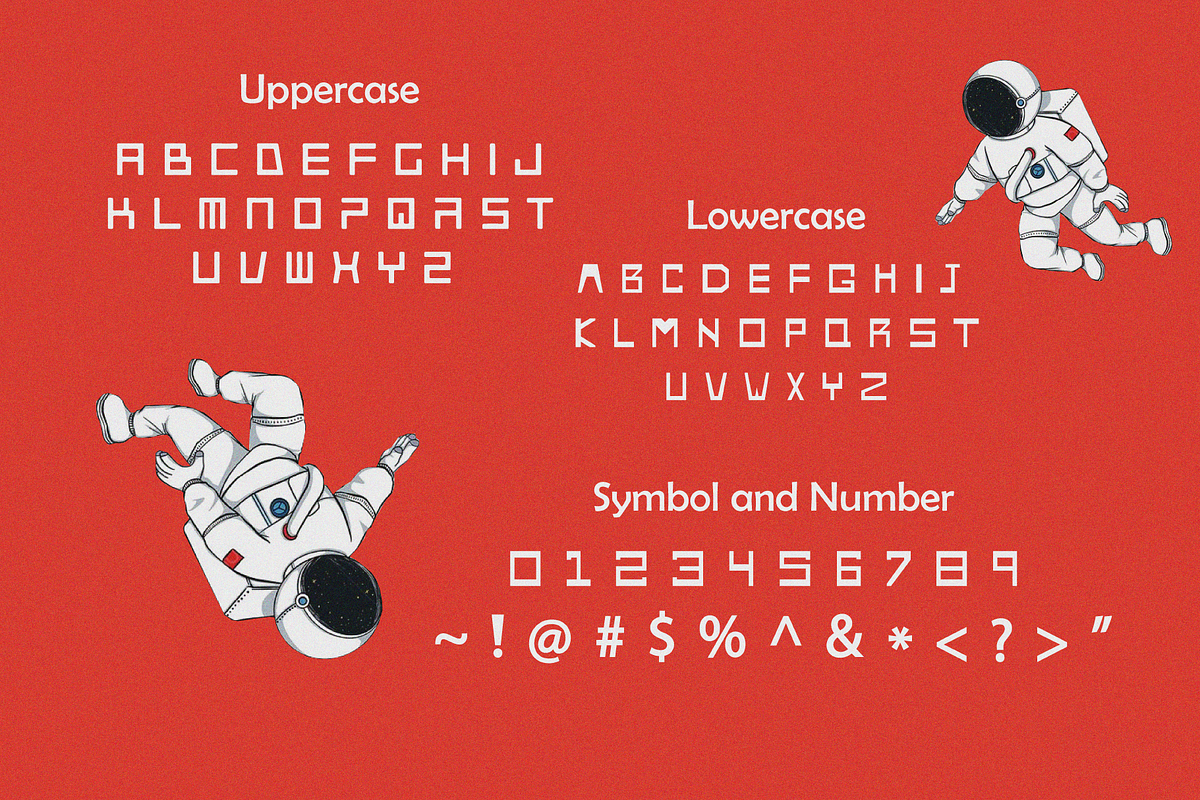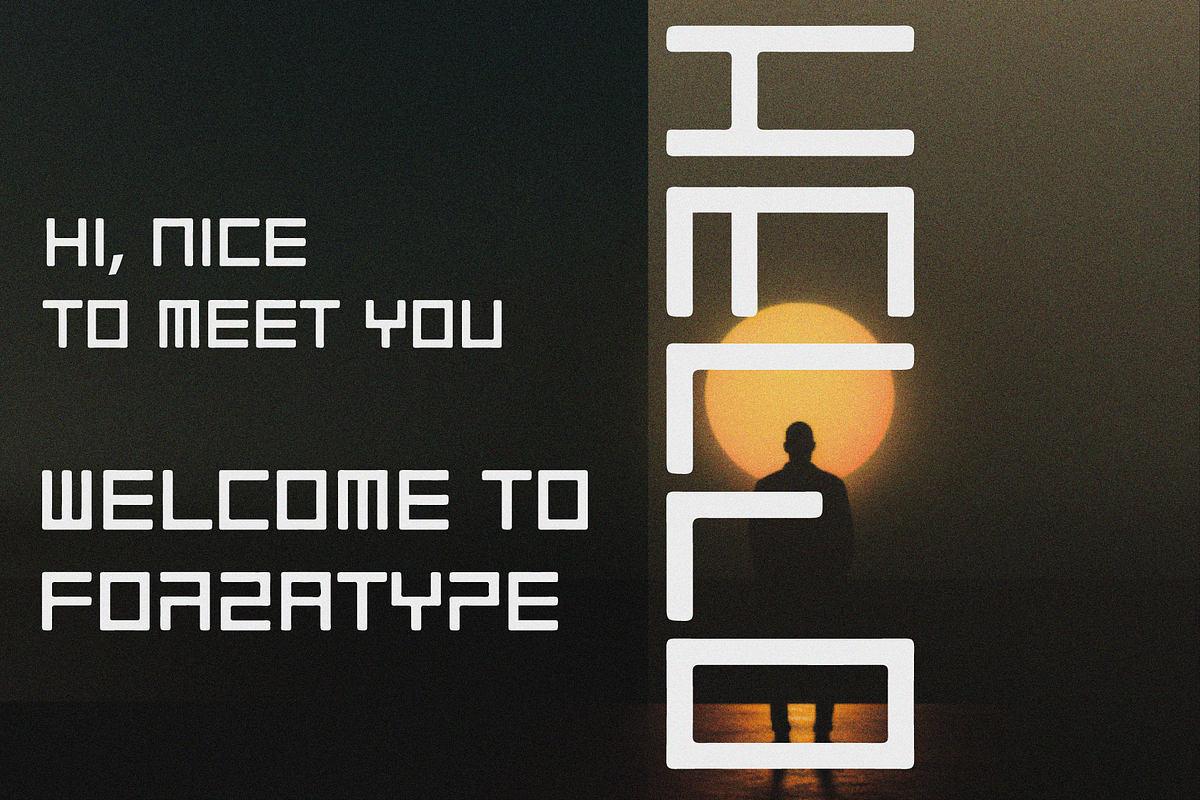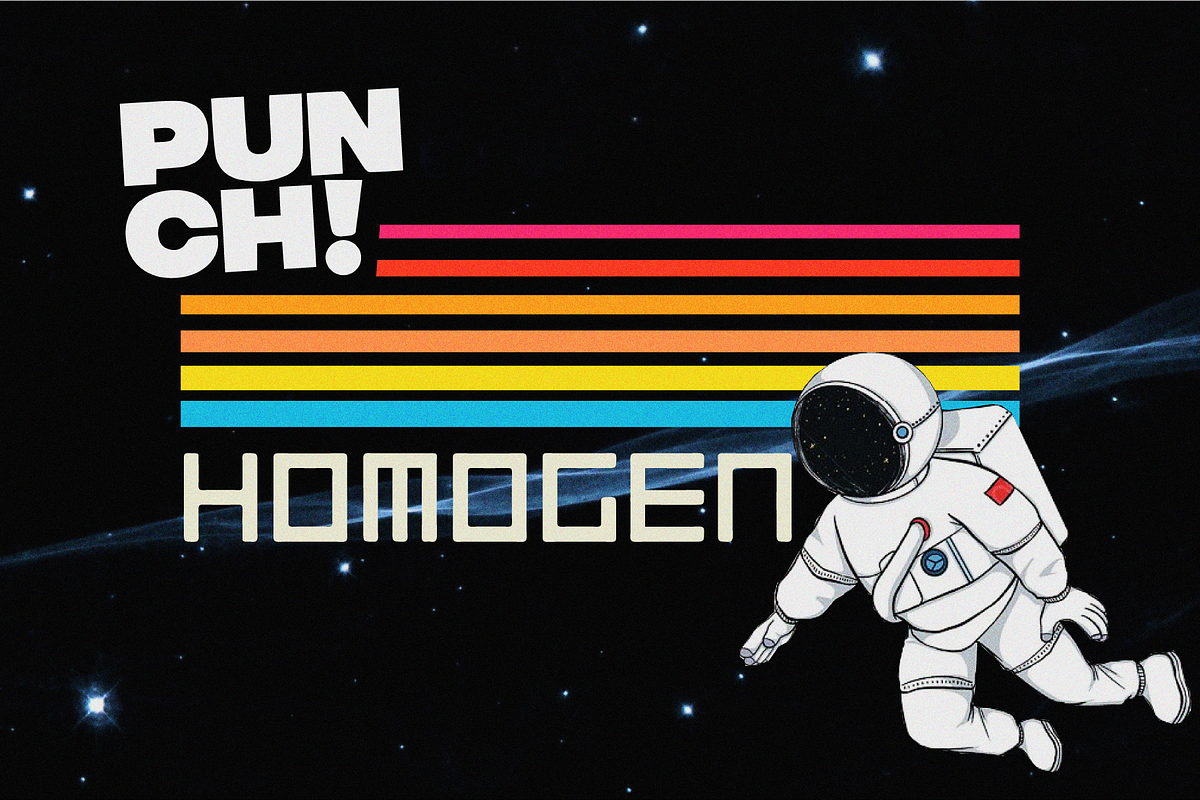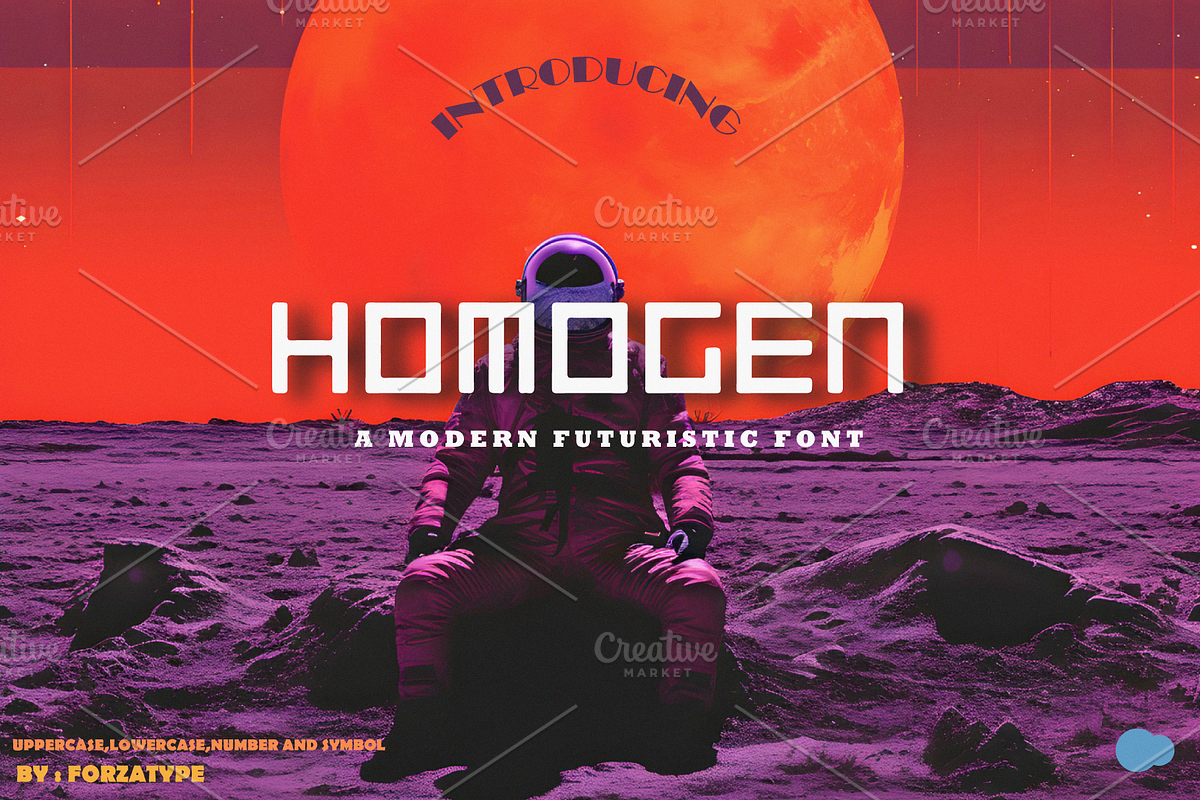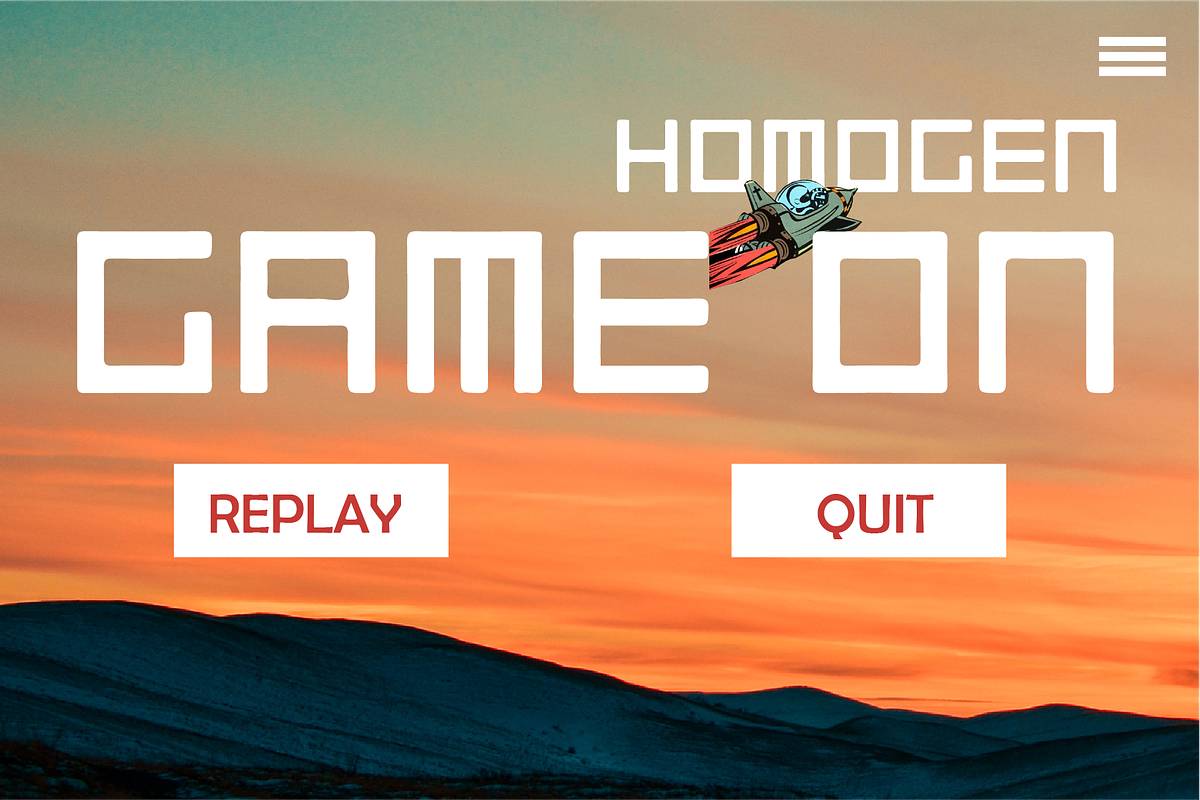
Homogen font
"Homogen" means having uniform or consistent characteristics throughout. In any context, including design and typography, it refers to the similarity and harmony of the elements present.
Why Homogen font is worth a look
Homogen font by ForzaType fits naturally into Branding, posters, packaging, typography.